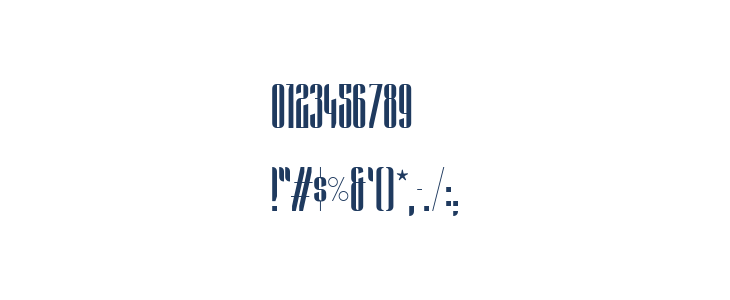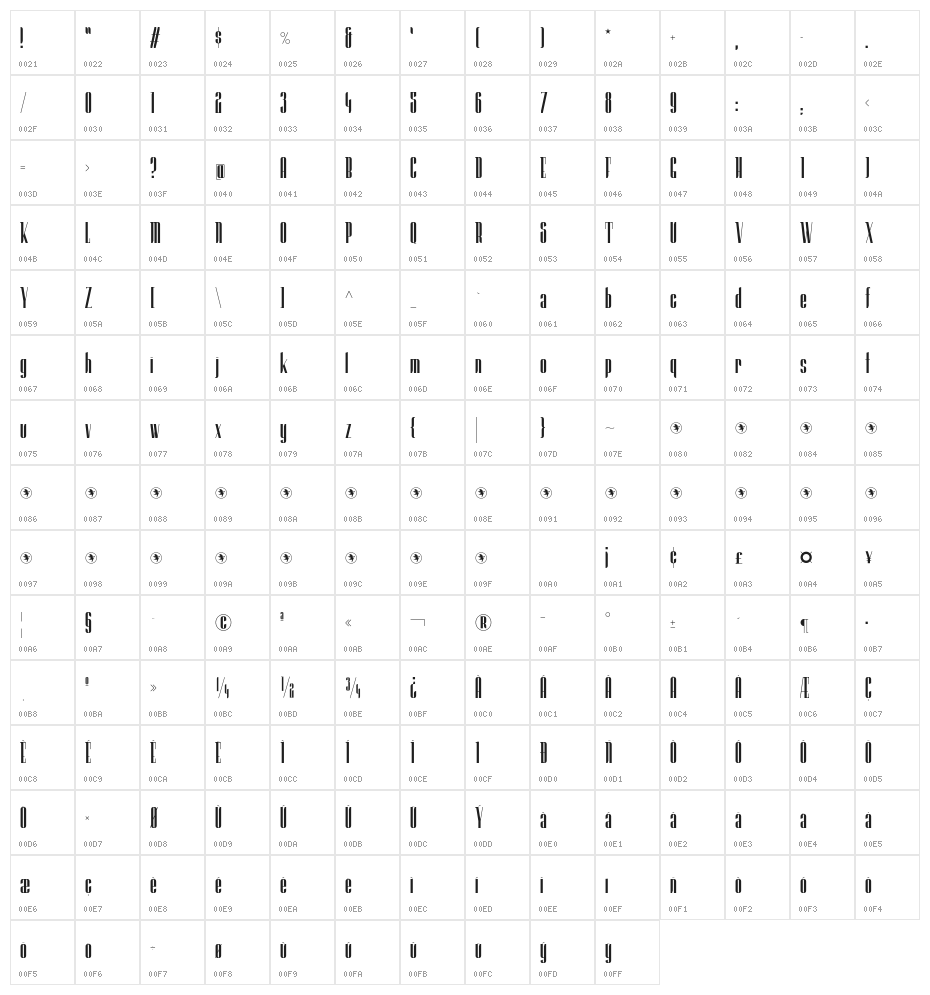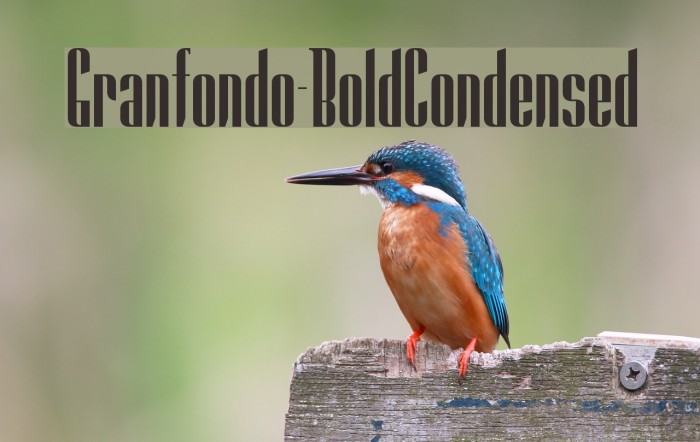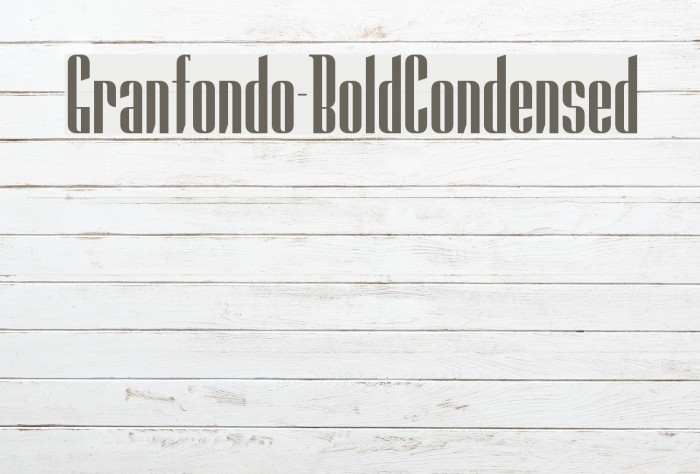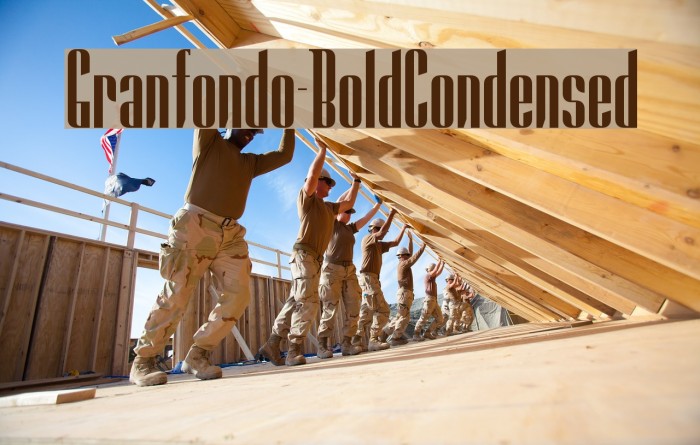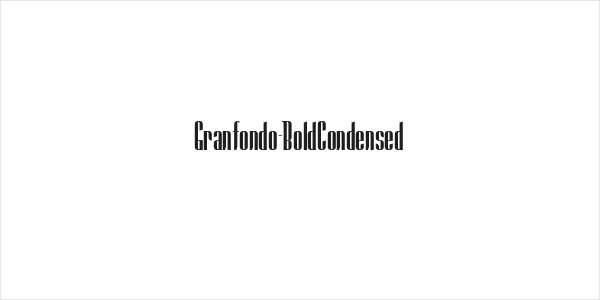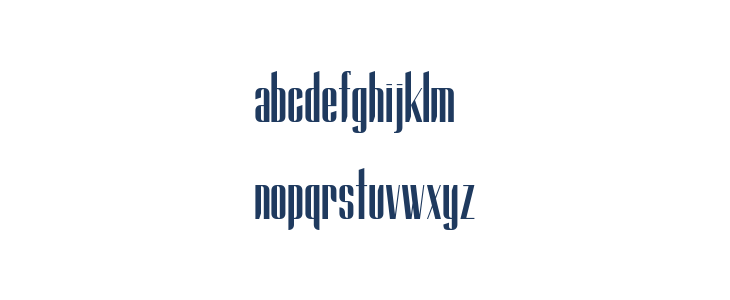
Granfondo-BoldCondensed Font
Granfondo-BoldCondensed Description
This font features a bold and condensed style, characterized by its tall and narrow letterforms. The uppercase letters have a strong vertical emphasis, with sharp, clean lines that convey a sense of modernity and strength. The lowercase letters maintain the condensed nature, offering a cohesive look across different text sizes. Numerals are equally bold and condensed, ensuring consistency in design. Special characters are designed to match the overall aesthetic, providing a complete and versatile typeface suitable for impactful designs.
Fabio Servolo
| Proposed Projects | Ideal for posters, headlines, branding, and any project requiring a bold statement. |